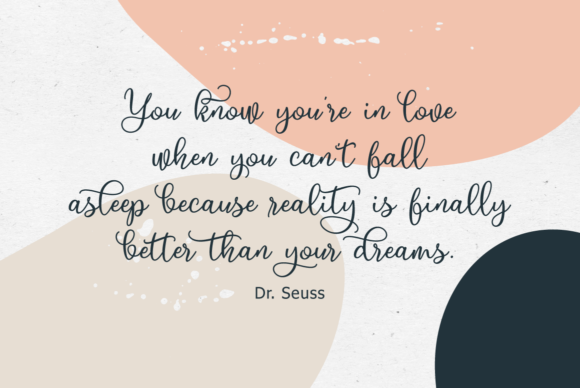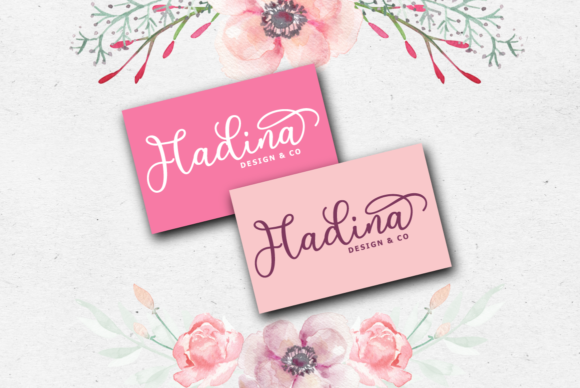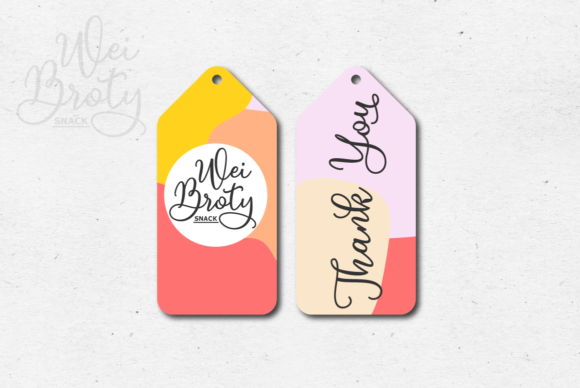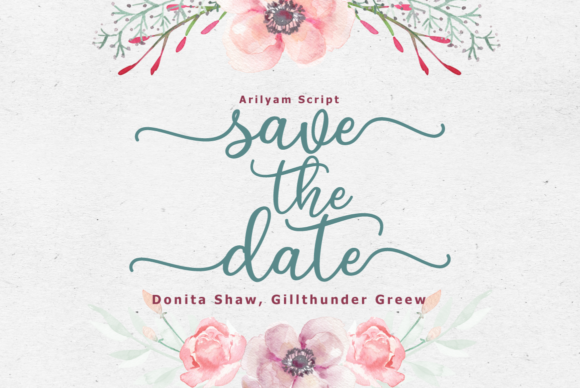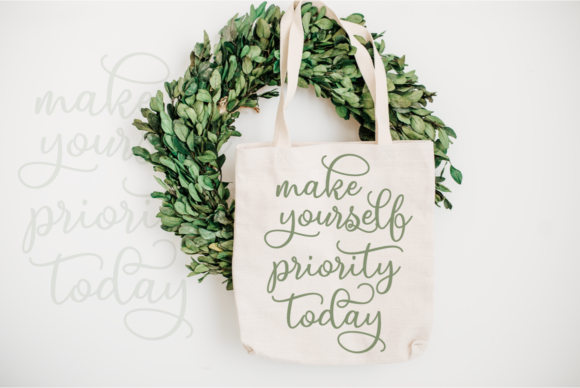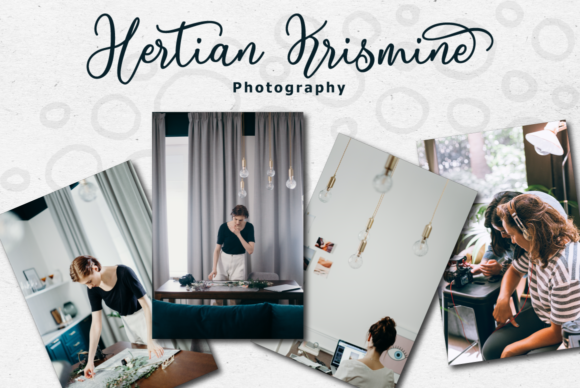
The Elegant Charm of Arilyam Font: A Designer’s Delight
Have you ever been in the middle of a design project, and suddenly, you’re struck by a creative block? You’re not alone! I recall working on a wedding invitation project, searching for the perfect font to convey elegance and romance. That’s when I stumbled upon Arilyam Font, and it instantly became my go-to choice. In this article, I’ll share my experience with Arilyam, its features, and how to make the most of it in your designs.
First Impressions: A Love Letter to Arilyam
Arilyam Font feels incredibly elegant and flowing, making it perfect for designs that require a handwritten touch. Its varying baseline, smooth lines, gorgeous glyphs, and stunning alternates make it a versatile choice for various projects, from wedding invitations and thank you cards to quotes, greeting cards, logos, and business cards.
What I Love About Arilyam ✨
- 💫 Elegant and flowing script style
- ✅ Versatile for various design projects
- 🎨 Beautiful glyphs and alternates
- 👍 Easy to read and understand
- 🤔 May not be suitable for very small font sizes due to intricate details
- ⚠️ Limited use for body text due to script style
The Story Behind Arilyam
Arilyam Font was designed with the intention of creating a beautiful, elegant script font that would add a touch of romance and sophistication to any design. The designer aimed to craft a font that would be versatile, easy to read, and perfect for a variety of creative projects.
Q: What type of projects is Arilyam Font best suited for?
A: Arilyam Font is perfect for designs that require a handwritten touch, such as wedding invitations, thank you cards, quotes, greeting cards, logos, and business cards.
Q: Can I use Arilyam Font for body text?
A: While Arilyam is easy to read, its script style makes it more suitable for headings and titles rather than body text.
Q: Does Arilyam Font come with OpenType features?
A: Yes, Arilyam Font features OpenType capabilities, including glyphs and stylistic alternates, allowing for a high level of customization.
Q: Is Arilyam Font suitable for very small font sizes?
A: Due to its intricate details, Arilyam Font may not be the best choice for very small font sizes. It’s recommended to use it at larger sizes to fully appreciate its beauty.